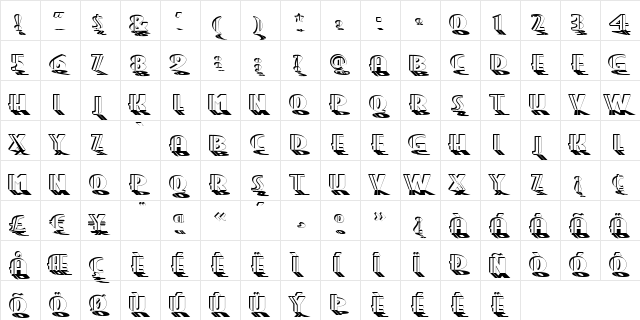
Grand Prix Revised Regular
Design Context for Grand Prix Revised Typeface
Grand Prix Revised is a composed and adaptable typeface that performs quietly and consistently across a wide range of design contexts.
Pro Tip: Use Grand Prix Revised in both headline and body roles to test its range before committing to a single application.